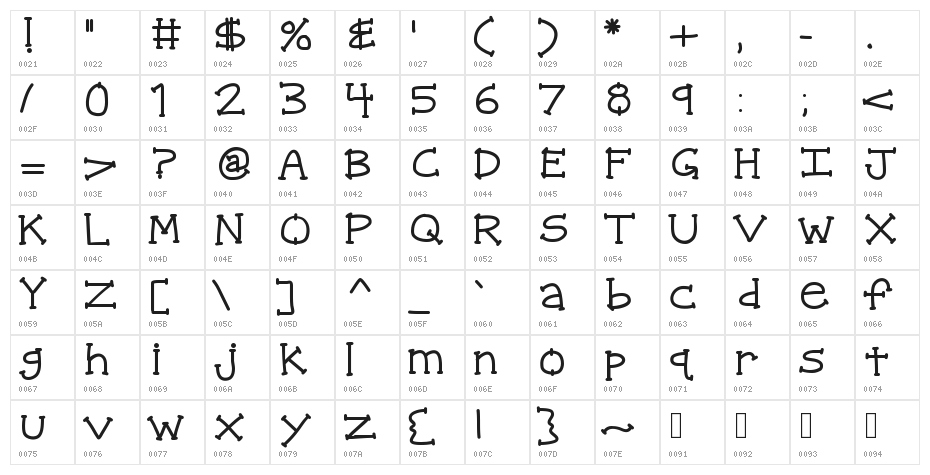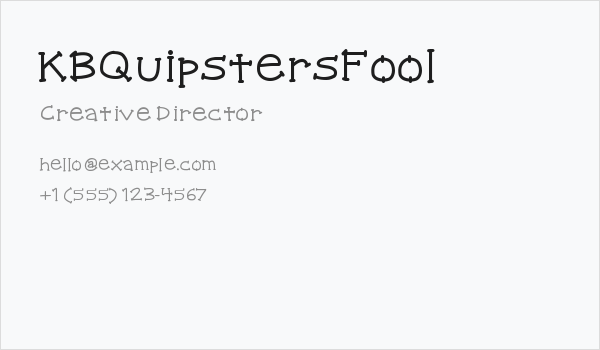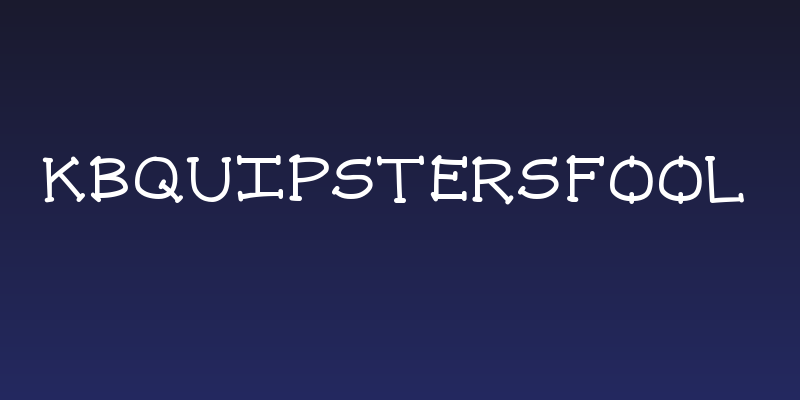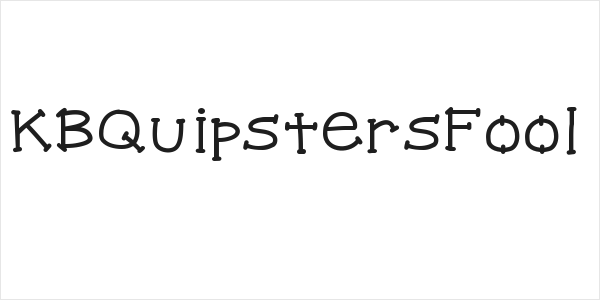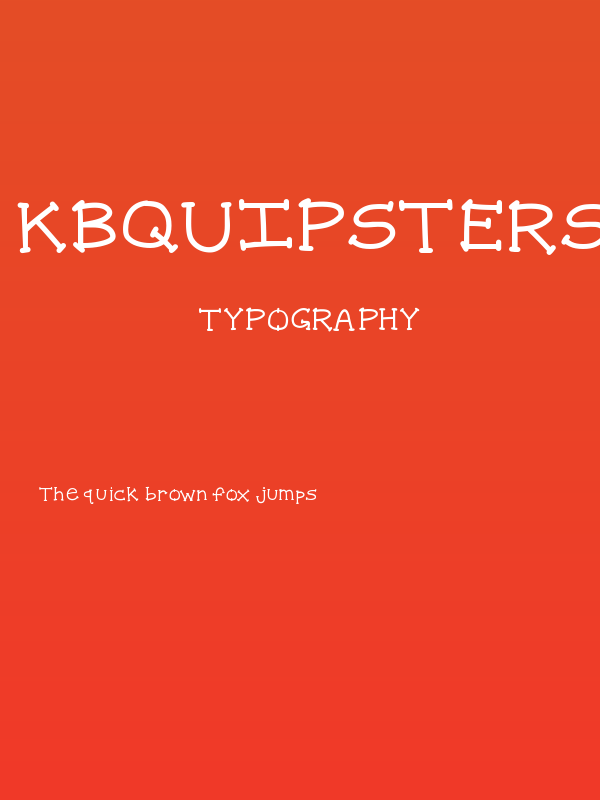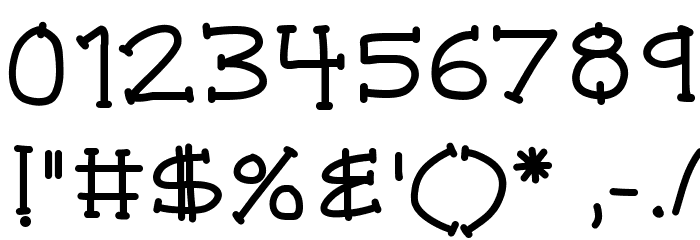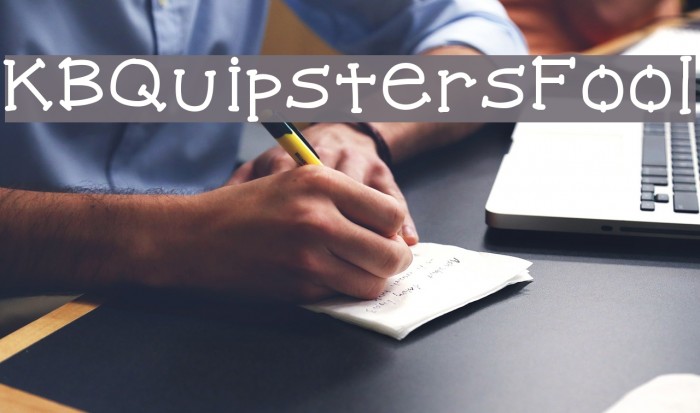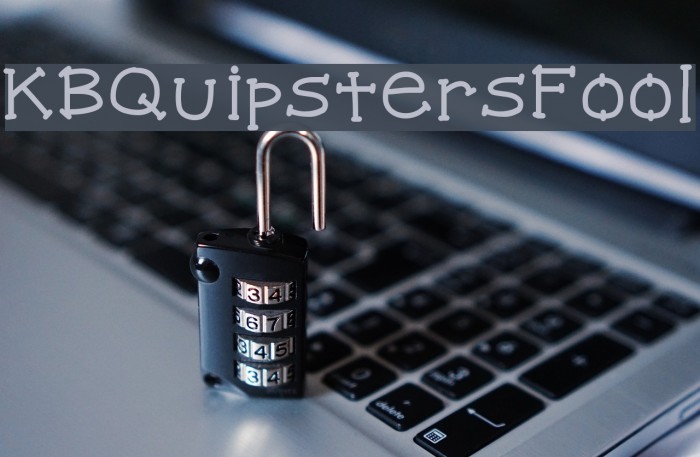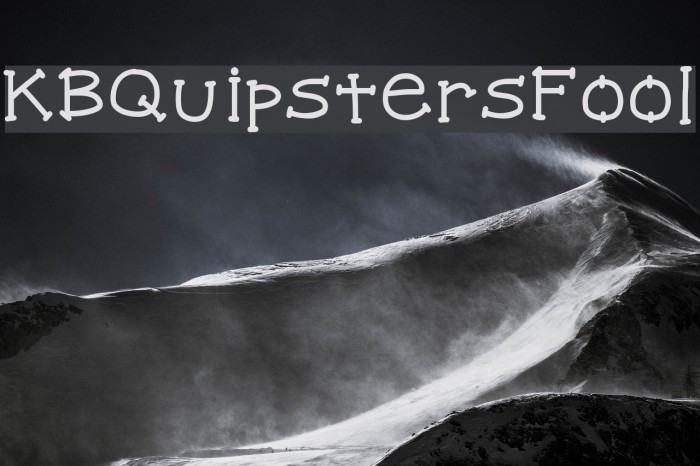
KBQuipstersFool Font
KBQuipstersFool Description
This playful and whimsical font features a unique hand-drawn style with rounded edges and a slightly uneven baseline, giving it a casual and friendly appearance. The characters are bold with a consistent stroke width, creating a uniform look while maintaining a sense of individuality in each letter. The font includes both uppercase and lowercase letters, numbers, and a variety of special characters, making it versatile for different design needs. Its distinct style is reminiscent of handwriting, adding a personal touch to any project.
| Overall Style | Whimsical |
| Proposed Projects | Ideal for children's books, playful branding, greeting cards, and informal invitations. |